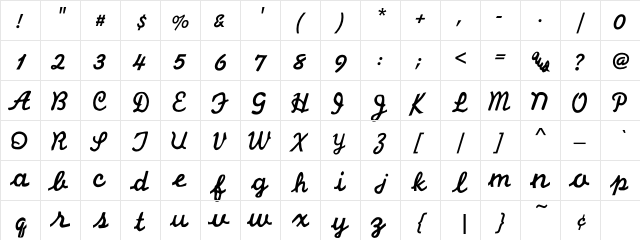
LHF Cosmic Cursive Regular
| Foundry | Tom Kennedy for Letterhead Fonts |
| Designer | Tom Kennedy for Letterhead Fonts |
Design Context for LHF Cosmic Cursive Typeface
LHF Cosmic Cursive brings a calligraphic fluidity to the page — its connecting strokes and expressive curves give it an unmistakably human quality.
Font Pairing: Combine LHF Cosmic Cursive with a simple geometric sans for maximum contrast — the tension between flowing curves and clean structure is a classic typographic pairing.
Pro Tip: Pair LHF Cosmic Cursive with a clean sans-serif for supporting text. The contrast between fluid script and geometric structure creates an elegant typographic hierarchy.